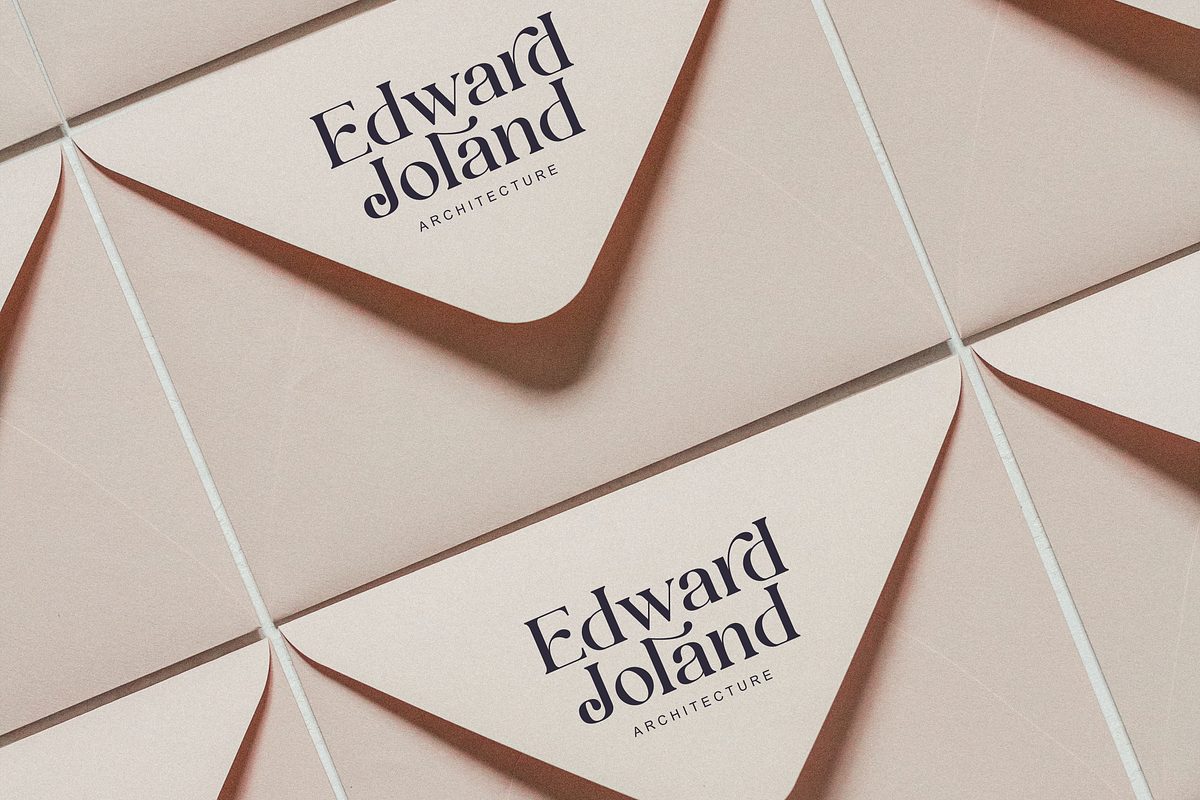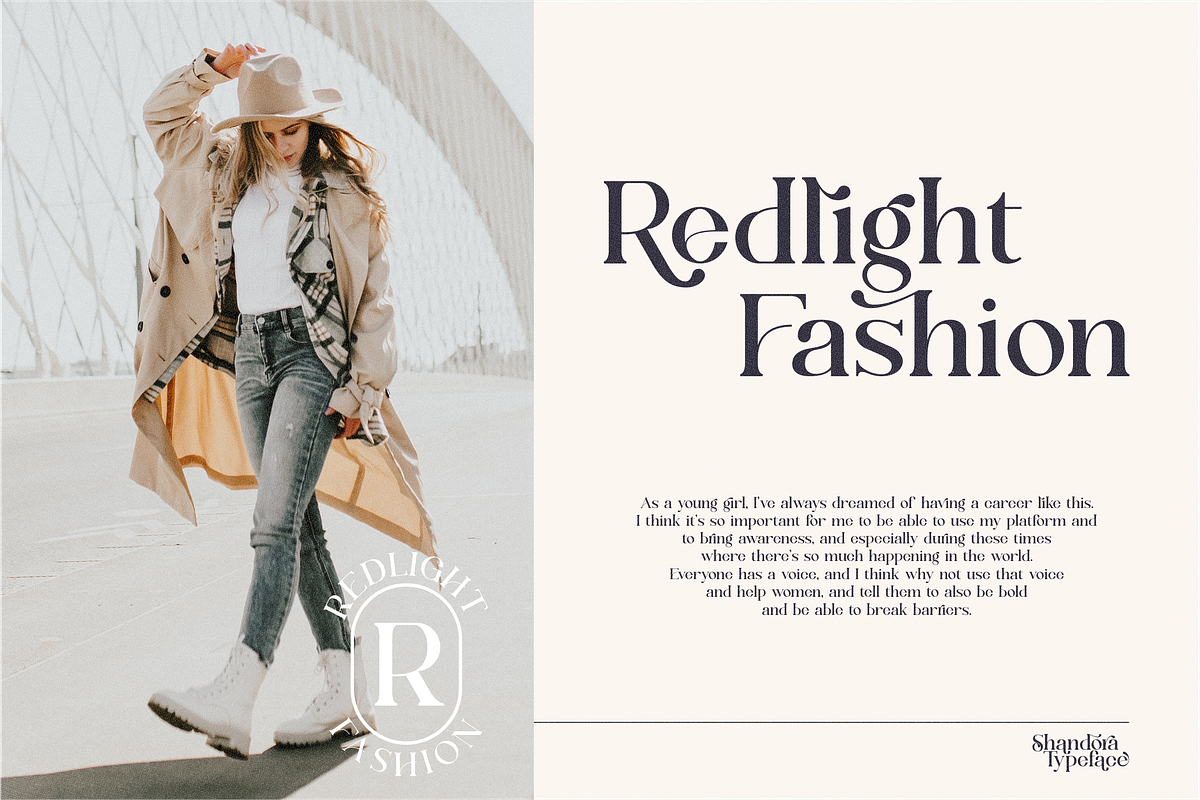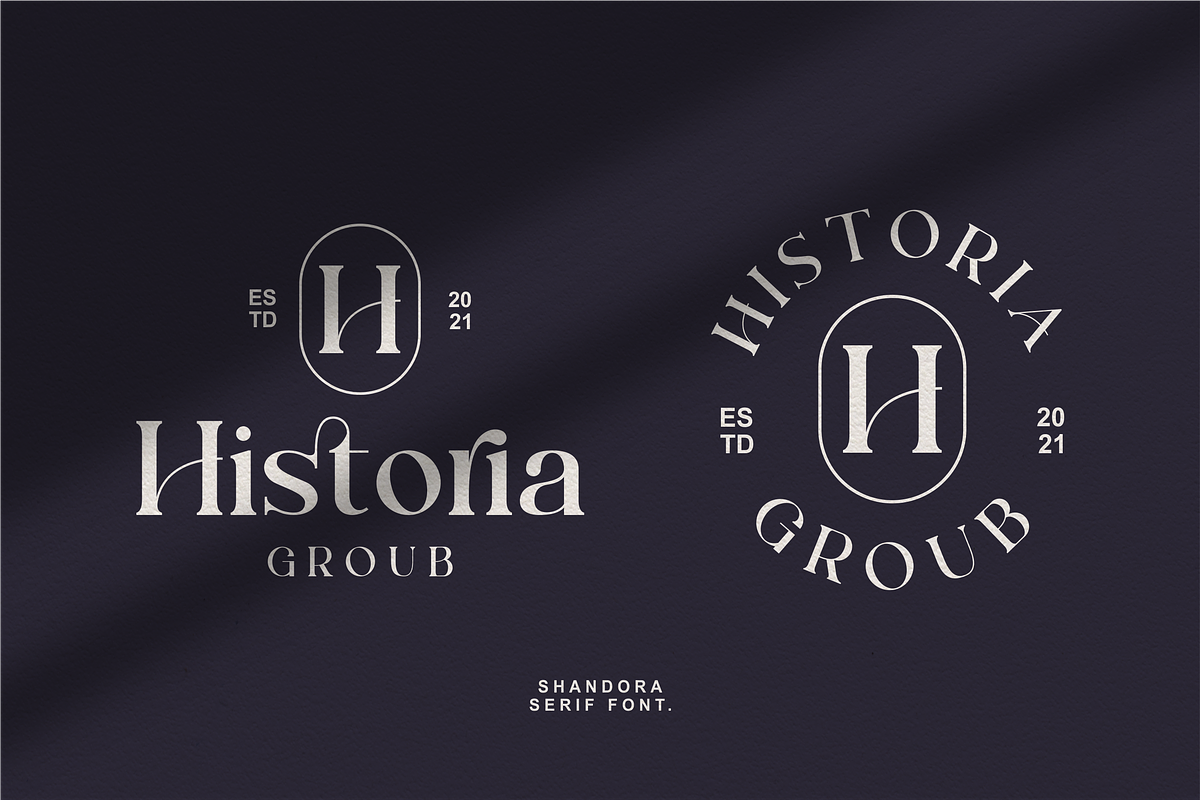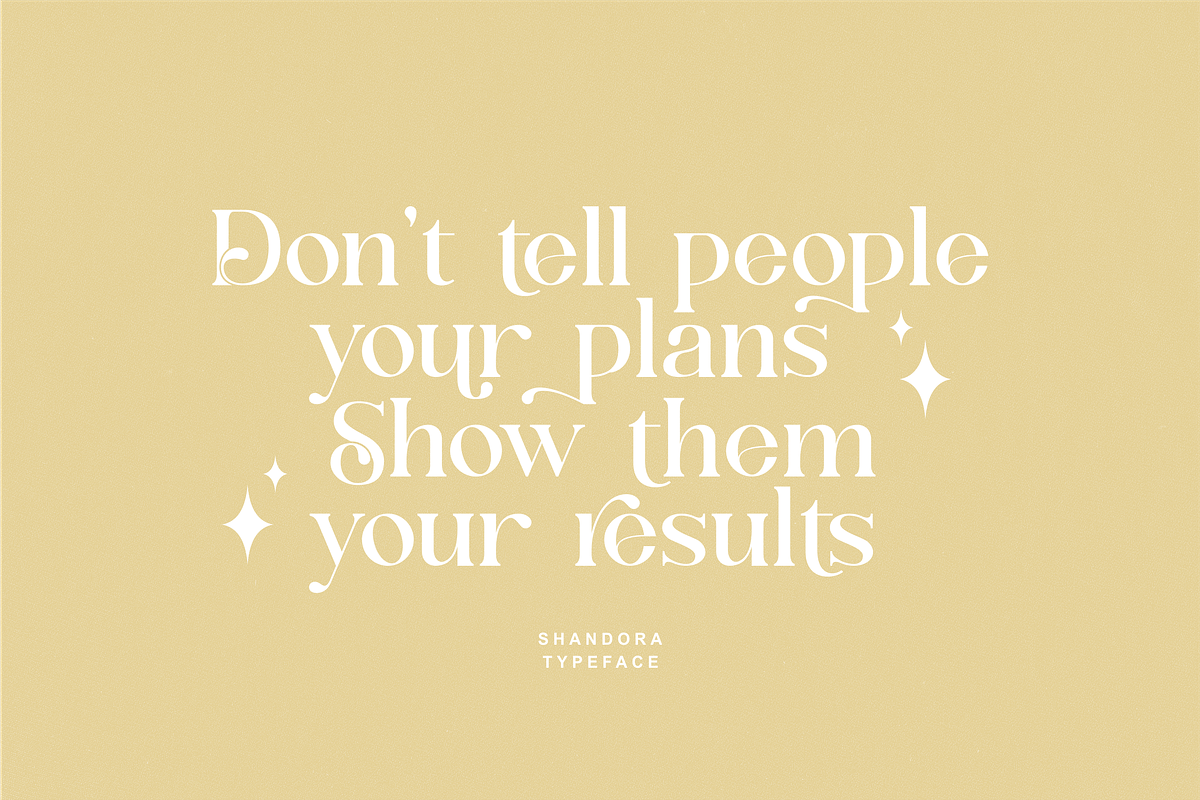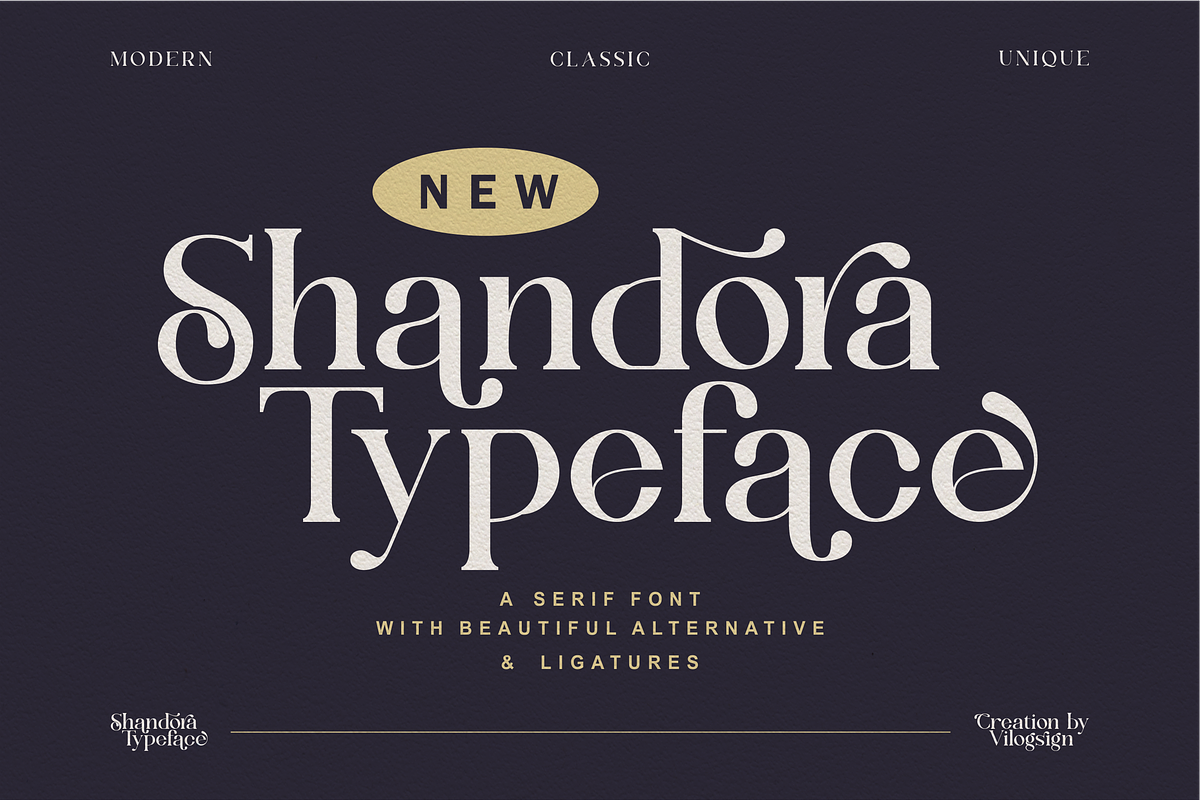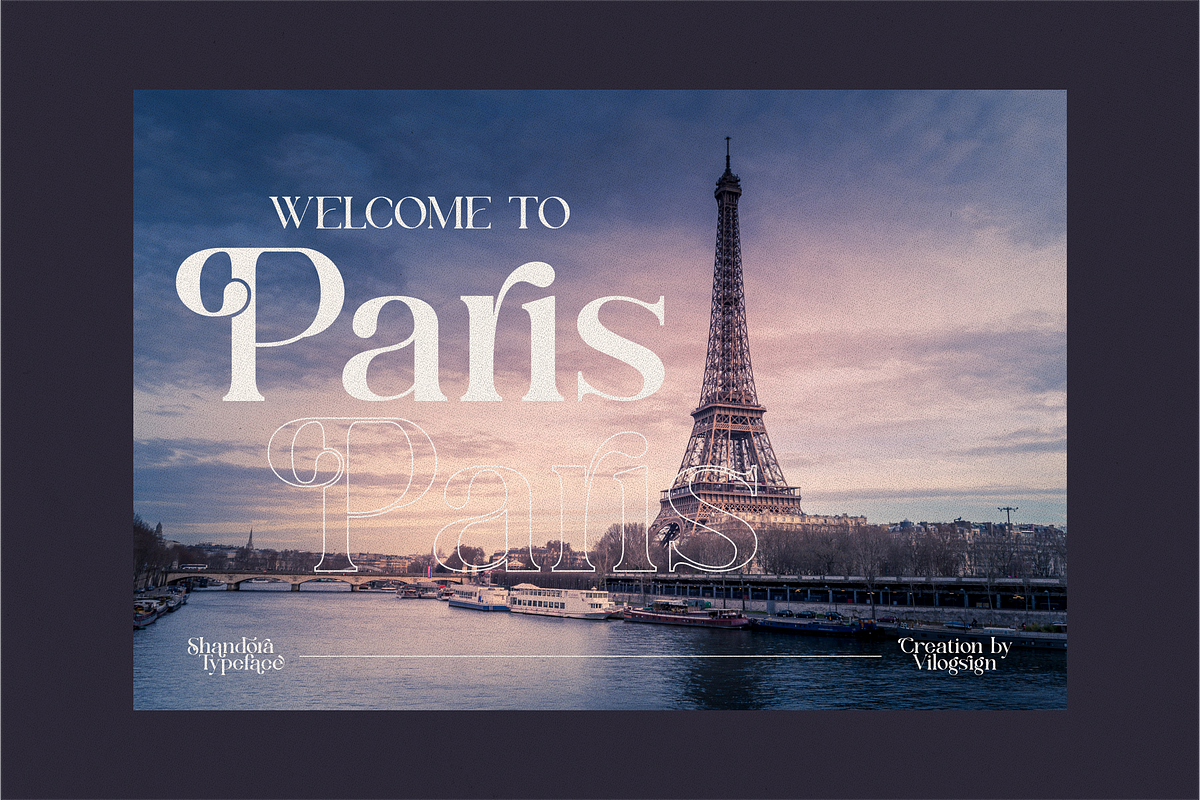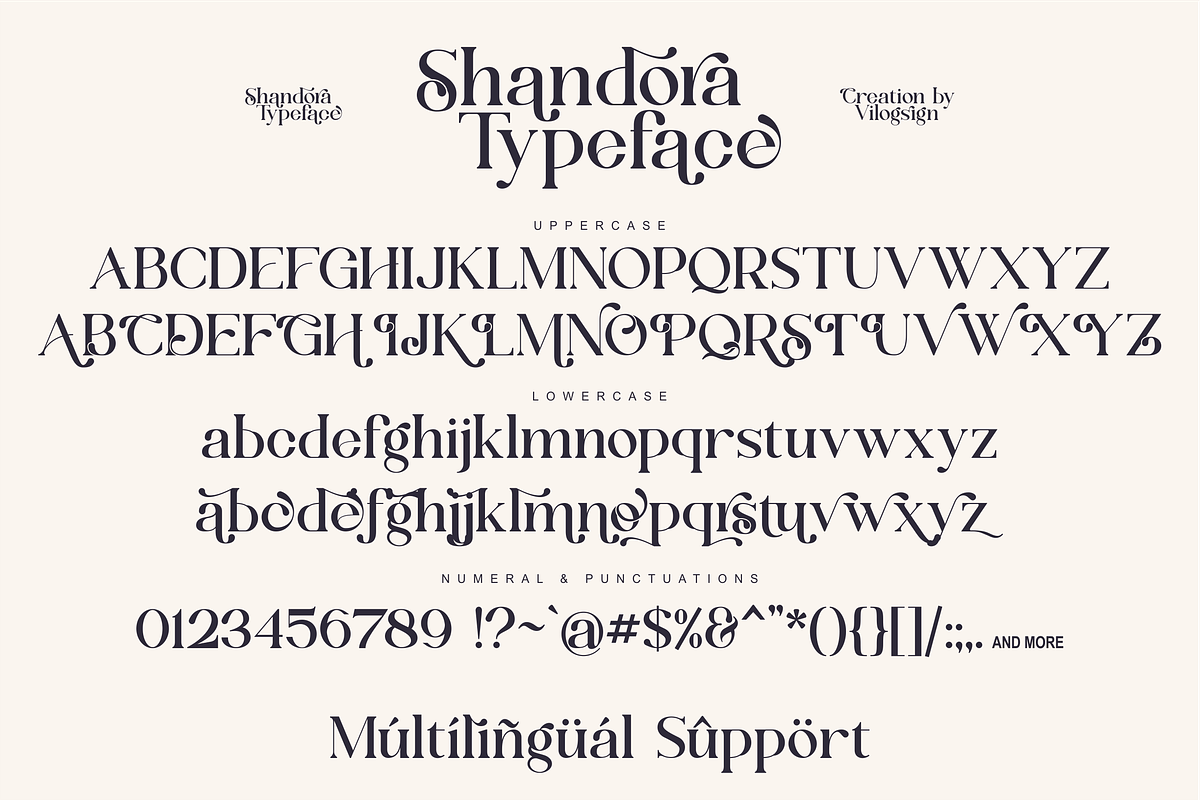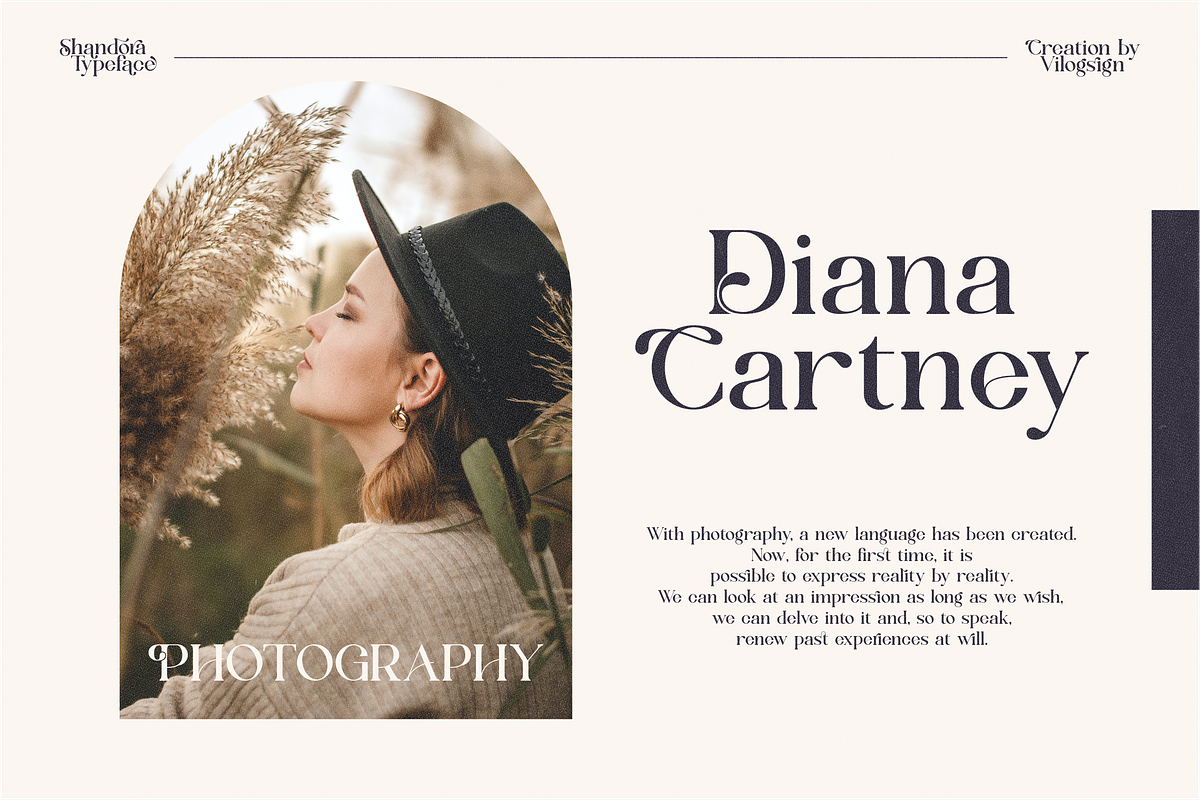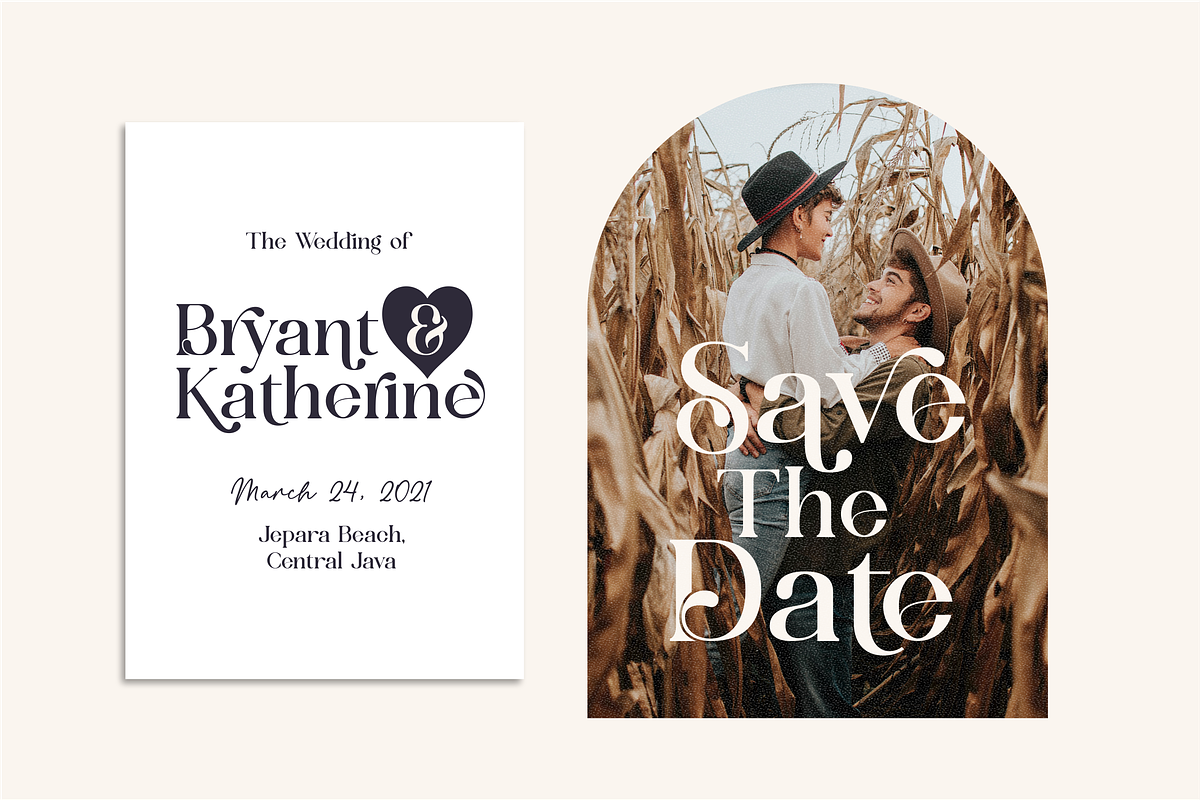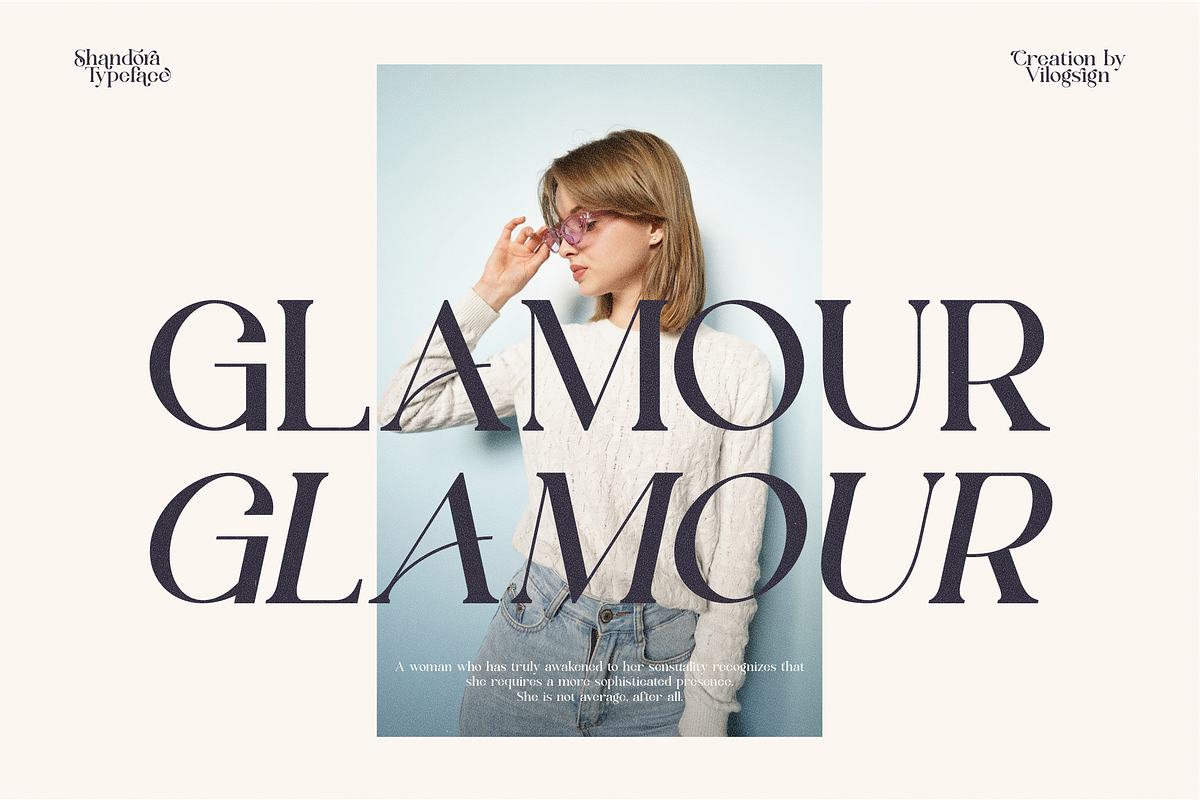
Shandora a Modern Serif Font
Hi,,, Introducing "Shandora" a Modern Serif Typeface Font!!!
Made with very serious With altenative make to make this font unique, chic, beautiful So perfect for your need. This font is very good with multilingual support to complete your need. Very suitable to make a branding, Poster, magazine, greeting card, fashion, quotes, logo, packaging, and other.